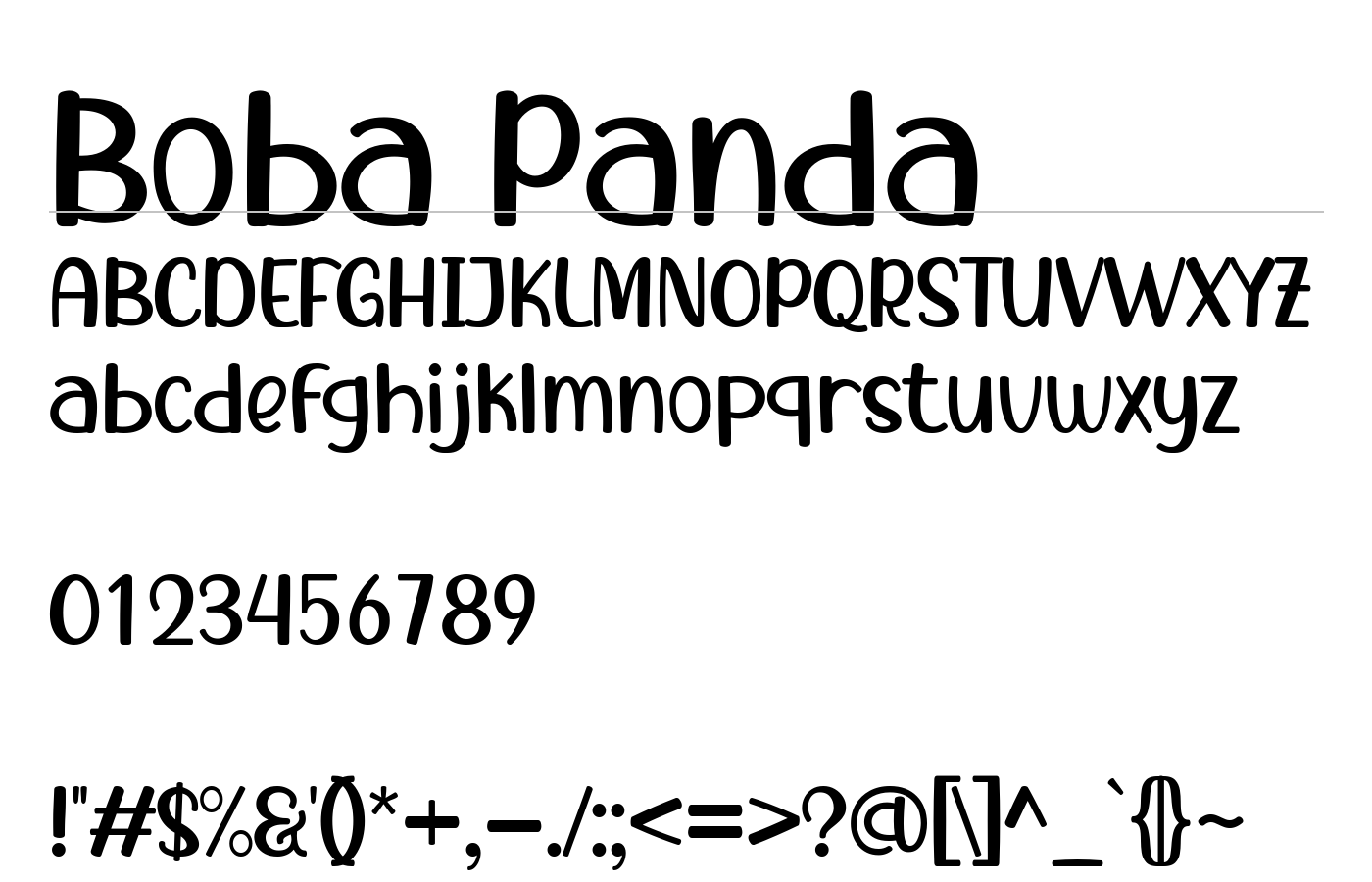
Boba Panda is a playful sans serif font with a hand-drawn, casual feel that brings warmth and friendliness to any design. Its tall, narrow letterforms and slightly irregular strokes give it a quirky, approachable personality perfect for children's books, informal branding, and creative projects. This font works wonderfully for headlines and display uses where a fun, energetic vibe is desired.
Boba Panda Font